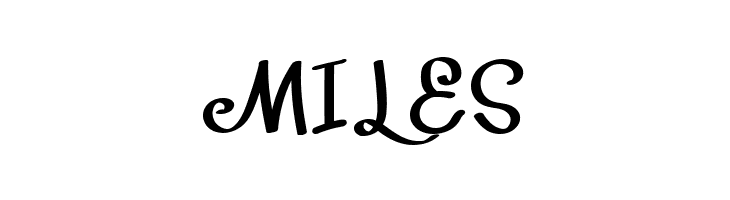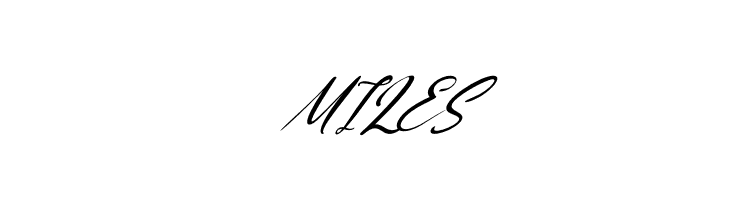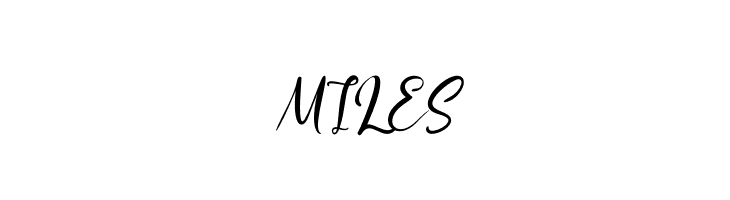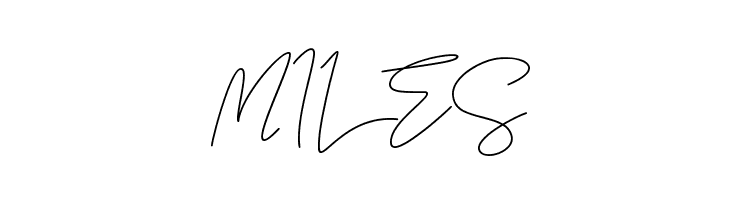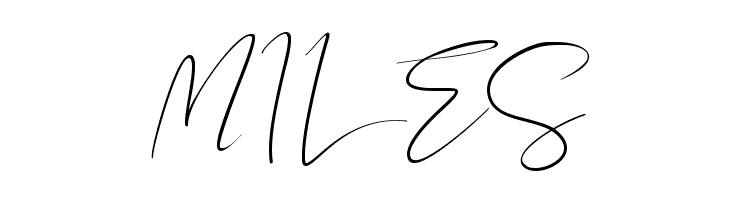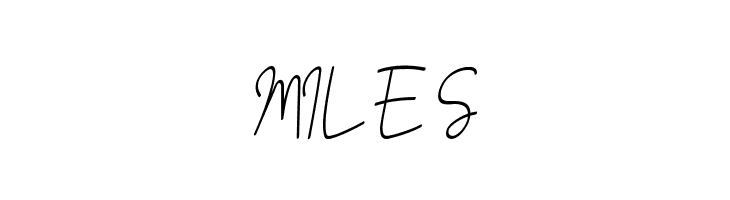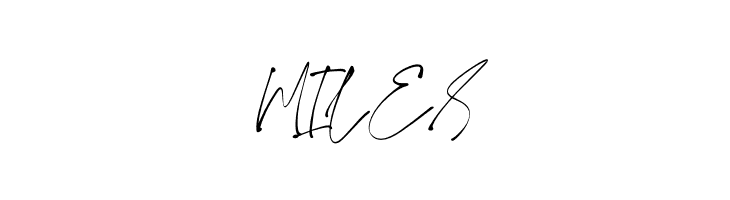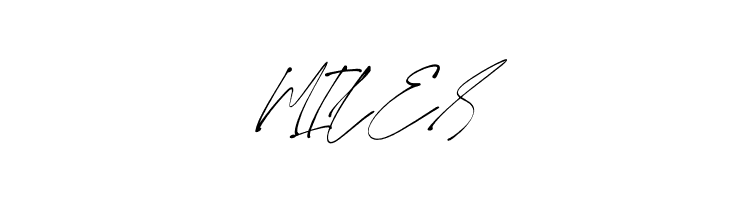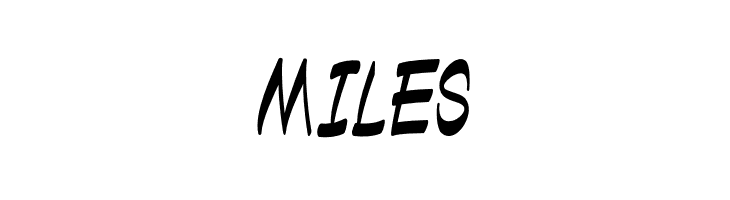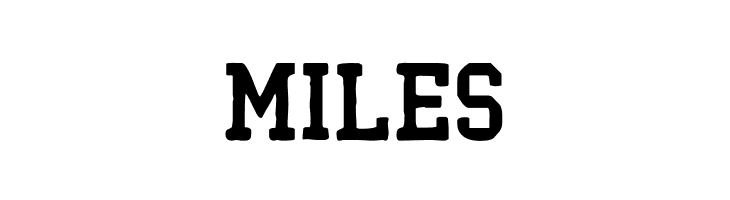
Chaotic, spiky display font with extreme visual intensity.
A bold, dynamic script font with a flowing and expressive style.
A bold, handwritten-style font with dynamic, slanted characters.
A bold, rugged font with a distressed, vintage appearance.
A bold, dynamic script font with fluid, connected letterforms.
A playful, handwritten font with a casual and friendly vibe.
A playful, hand-drawn font with rounded, whimsical letterforms.
A bold, hand-drawn font with a playful and dynamic style.
A bold, geometric font with sharp angles and high contrast.
A bold, distressed font with a grunge texture and vintage appeal.
An intricate Blackletter font with ornate, angular letterforms and historical elegance.
A bold, playful font with a hand-drawn, textured style.
A bold, ornate blackletter font with a medieval aesthetic.
A bold, gothic Blackletter font with intricate, angular designs.
An elegant script font with graceful, flowing lines and ornate flourishes.
A bold, distressed font with a hand-painted look, ideal for impactful designs.
A bold, gothic-inspired font with sharp, angular edges and intricate details.
A bold, hand-drawn font with a textured, artistic style.
A graceful script font with flowing, connected strokes and elegant curves.
A flowing, cursive script font with an elegant italic slant.
A bold, textured brush script font with a dynamic and artistic style.
A playful and whimsical font with decorative serifs and rounded forms.
A dynamic and elegant script font with a flowing, cursive style.
A dynamic, expressive handwritten font with fluid strokes and elegant curves.
A playful handwritten font with rounded, consistent strokes and a casual feel.
A playful and elegant cursive font with fluid, connected letterforms.
A flowing, elegant cursive font with smooth, connected letters.
A dynamic, cursive font with fluid strokes and elegant curves.
A flowing, cursive font with elegant and artistic flair.
A pixelated, retro-style font with a bold, digital appearance.